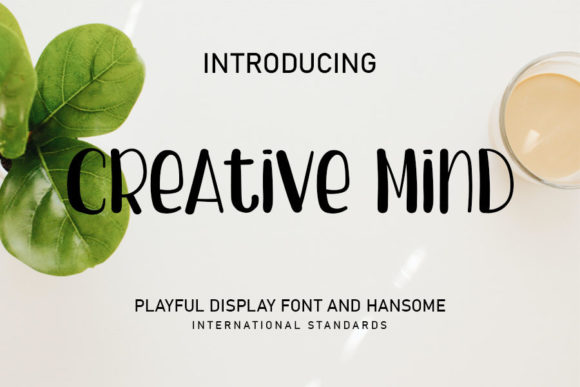
Indulge in the whimsical world of Creative Mind Font, where your design dreams take flight! This captivating script font, crafted with the utmost care by shiddiq.art, exudes an irresistible charm that will leave a lasting impression on your audience.
Prepare to be mesmerized by Creative Mind Font's enchanting curves and playful personality. As if plucked straight from a whimsical fairy tale, this font will infuse your designs with a touch of magic and delight. Whether you're a seasoned designer or a creative enthusiast, this font is your golden key to unlocking endless possibilities.
Imagine your photography logos adorned with the enchanting grace of Creative Mind Font. Its flowing lines and enchanting swirls will draw the eye of every beholder, inviting them to embark on an unforgettable visual journey. With Creative Mind Font as your trusty companion, your designs will blossom into vibrant, eye-catching masterpieces that will leave an enduring mark on the hearts and minds of your audience.
So, dear dreamer, cast aside your creative inhibitions and embrace the captivating allure of Creative Mind Font. Let its whimsical spirit ignite your imagination and guide you towards design brilliance. Immerse yourself in a world where creativity knows no bounds, and watch as your creations come to life with an ethereal beauty that will capture the essence of your artistic vision.